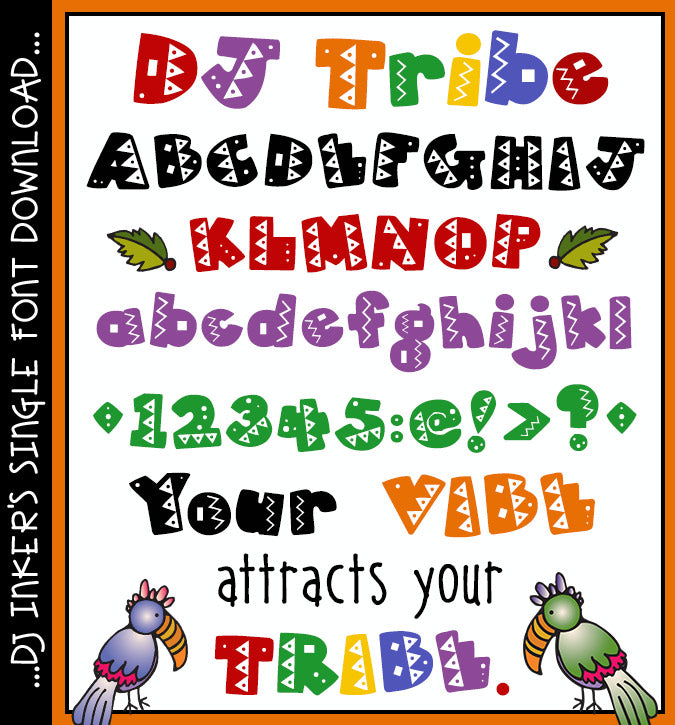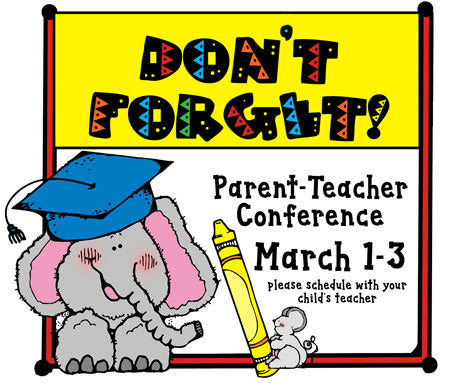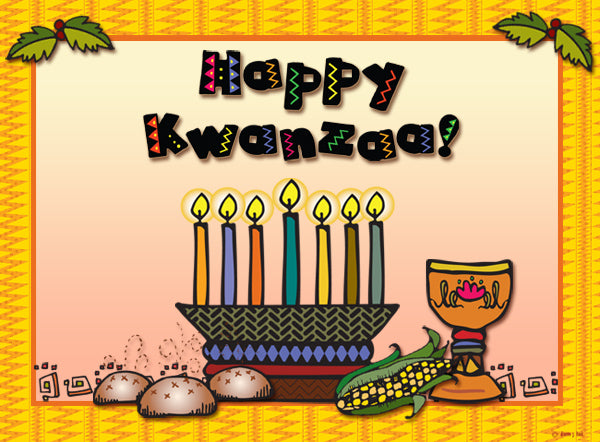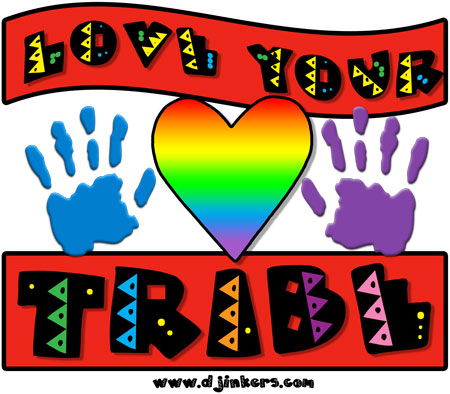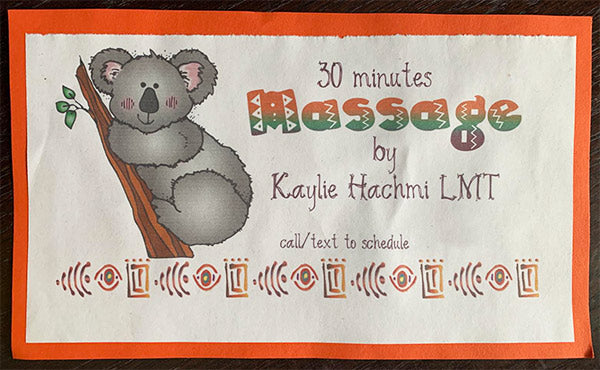
A fun tribal font for travels, Africa, art and native history by DJ Inkers.  Your vibe attracts your tribe quote
DJ Tribe Font Download
A fun tribal font for travels, Africa, art and native history by DJ Inkers.  Your vibe attracts your tribe quote
Create a cool vibe on any project when you type with DJ Tribe! This bold headline font is great for travel, country reports, tribal studies, African adventures or just for fun.